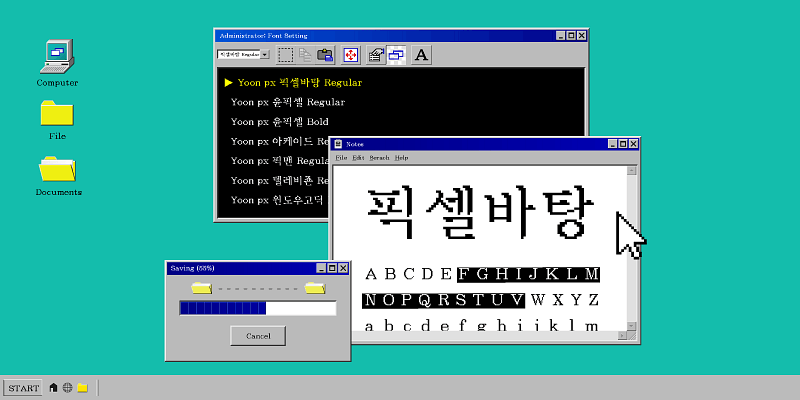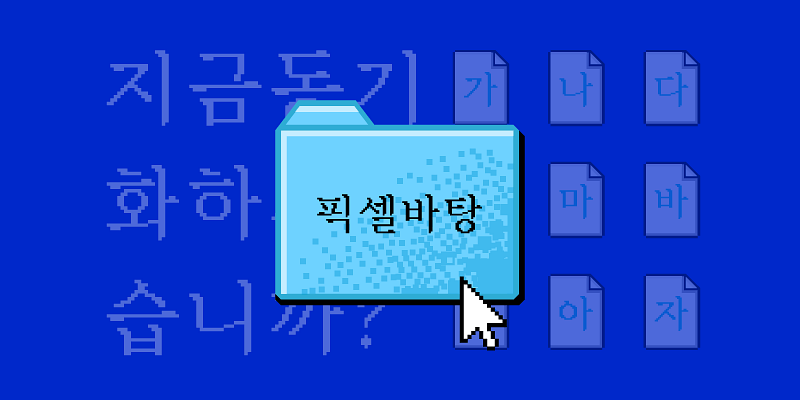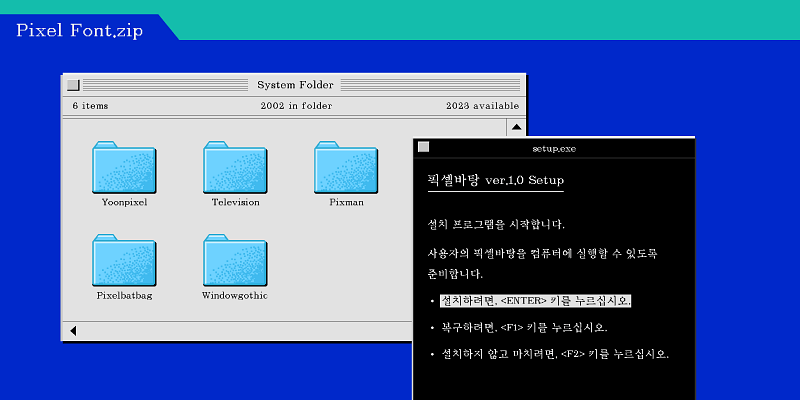
This is a pixel font from Yoondesign Group, modernized and vectorized from the traditional pixel fonts of the past to align with contemporary aesthetic sensibilities.
Pixelbatang, reminiscent of system fonts seen on convex monitors, boasts thin stroke work and contrasting serifs. With support for 11,172 Hangul characters, it ensures comprehensive representation of every Korean letter.